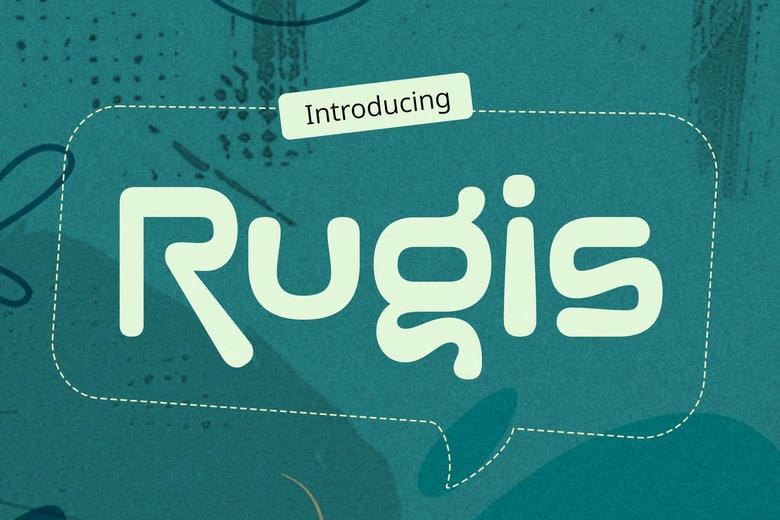
Rugis Font
Rugis is a rounded sans-serif font with a clean and friendly look. Its smooth curves and balanced shapes work well for bold headlines, striking logos, and modern branding. Stylish ligatures add a unique detail, but the font still feels fresh and simple.